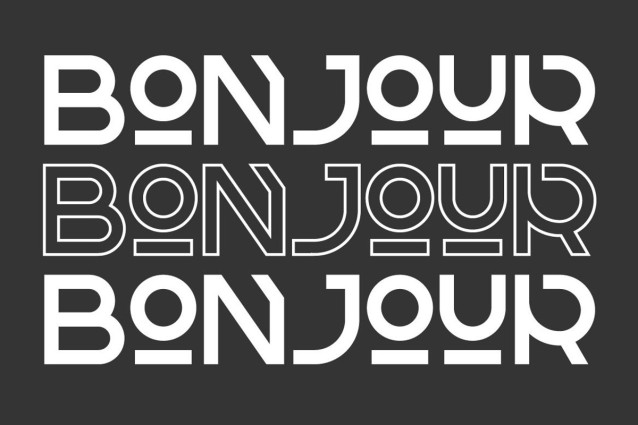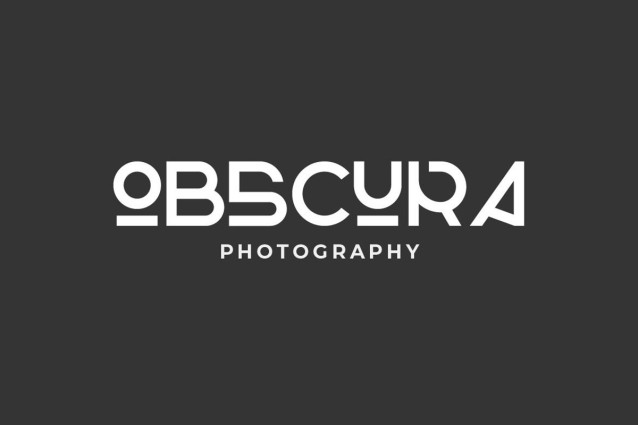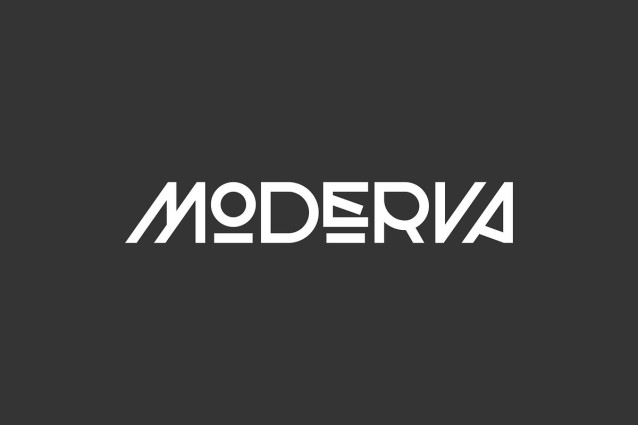
Moderva Font
Moderva Font is a modern geometric sans serif font that embodies clarity, structure, and sleek sophistication. Built on precise geometric shapes and clean lines, Moderva offers a contemporary feel that’s both professional and versatile. Its balanced proportions and minimal design make it ideal for branding, editorial layouts, web interfaces, product packaging, and any project where visual clarity and modernity matter.